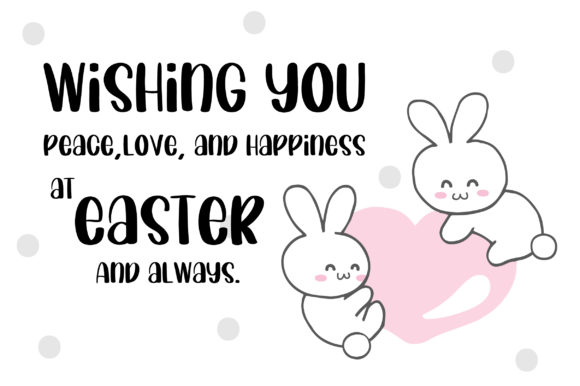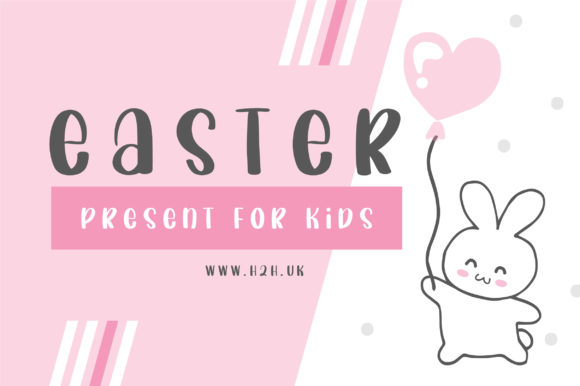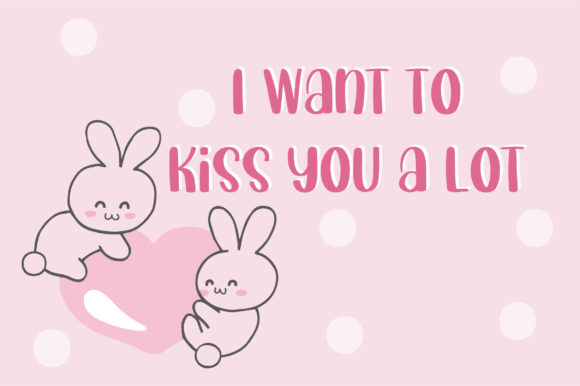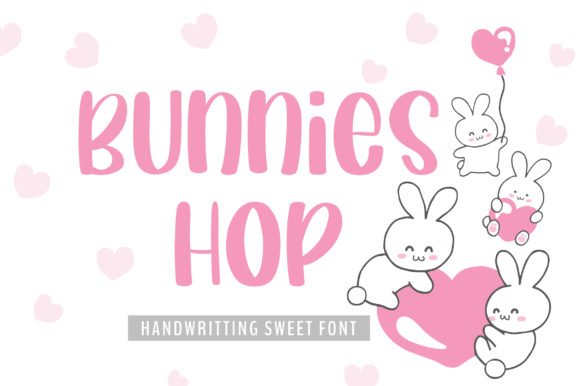
Introduction to Bunnies Hop Font
Bunnies Hop is a sweet and cute handwritten font.
This beautiful font is the perfect choice for any crafting project .
Why Choose Bunnies Hop Font?
Bunnies Hop Font offers exceptional quality and versatility, making it a valuable addition to your design toolkit. Whether you’re creating for personal projects or commercial use, Bunnies Hop Font delivers professional results.